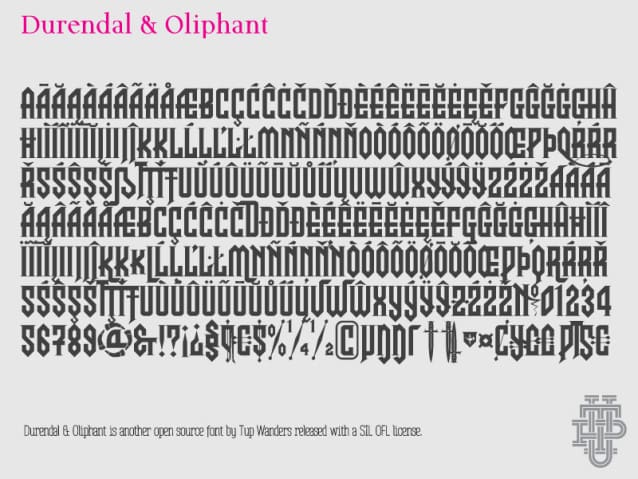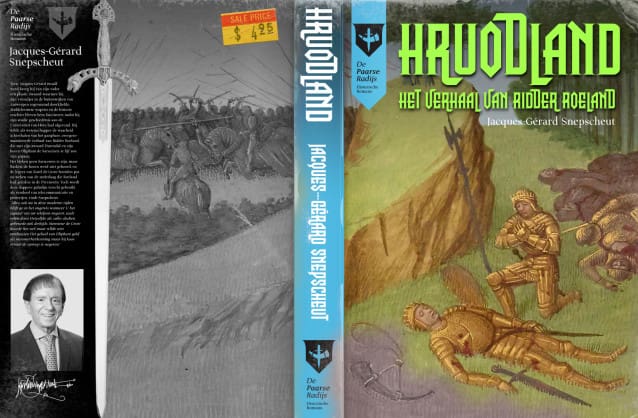
Durendal And Oliphant Font is a font with a medieval feel, but its ridiculously small serifs remind me of late 19th century typefaces. It doesn’t matter anyway. There are lots of ligatures and variations, and there are lots of languages covered. Only uppercase, though.
Durendal And Oliphant Font
| Designer Name: | Tup Wanders |